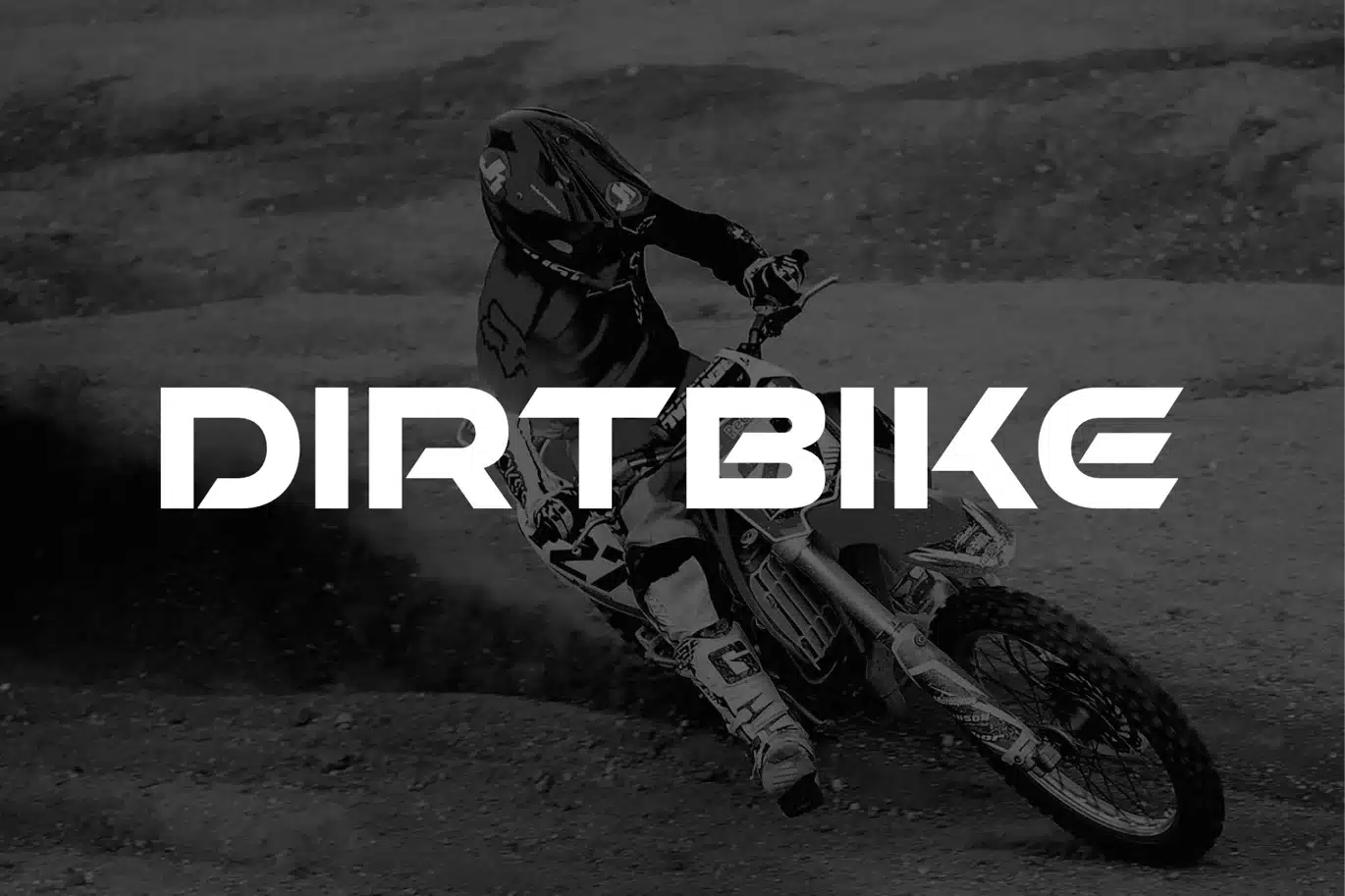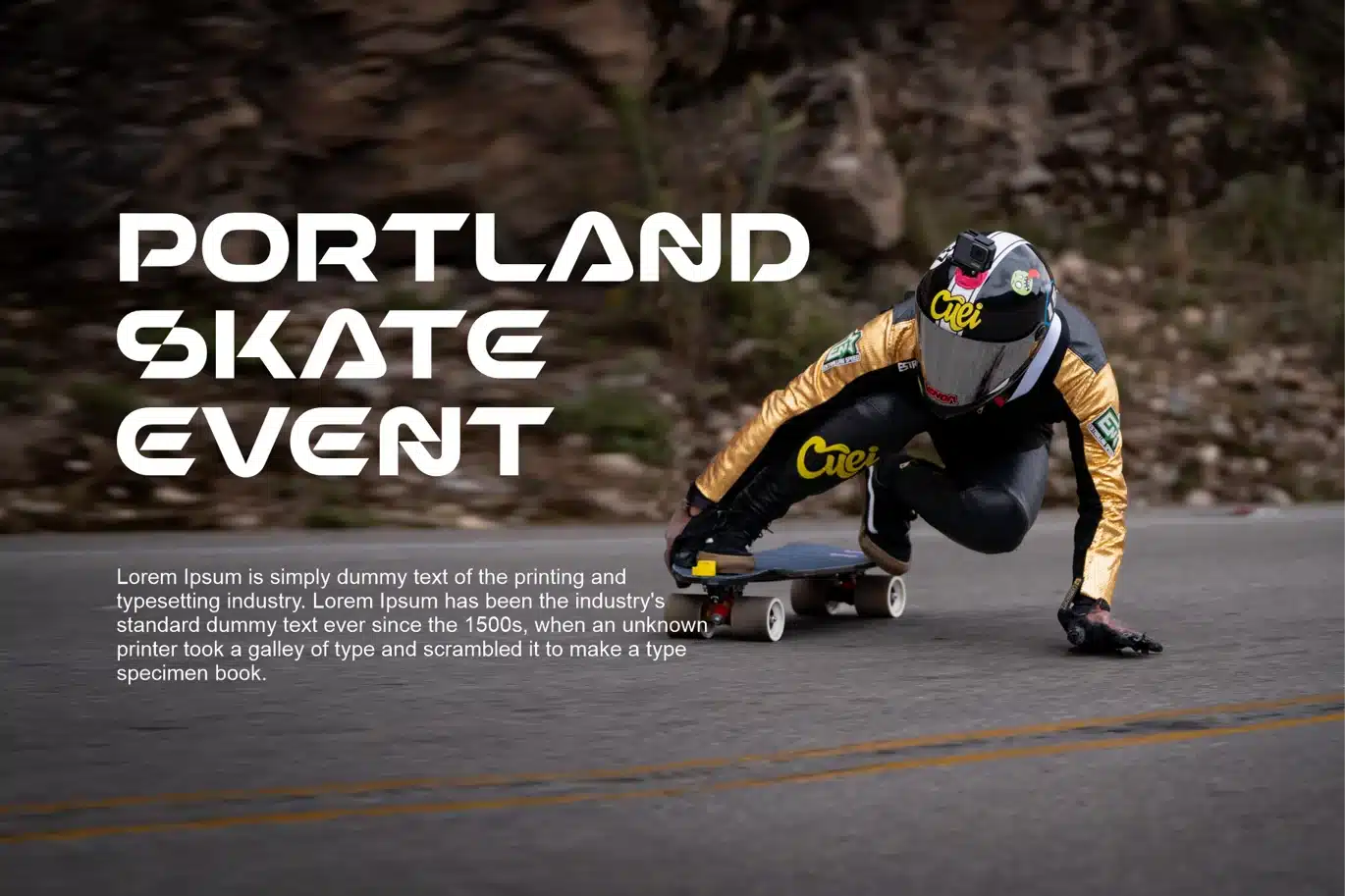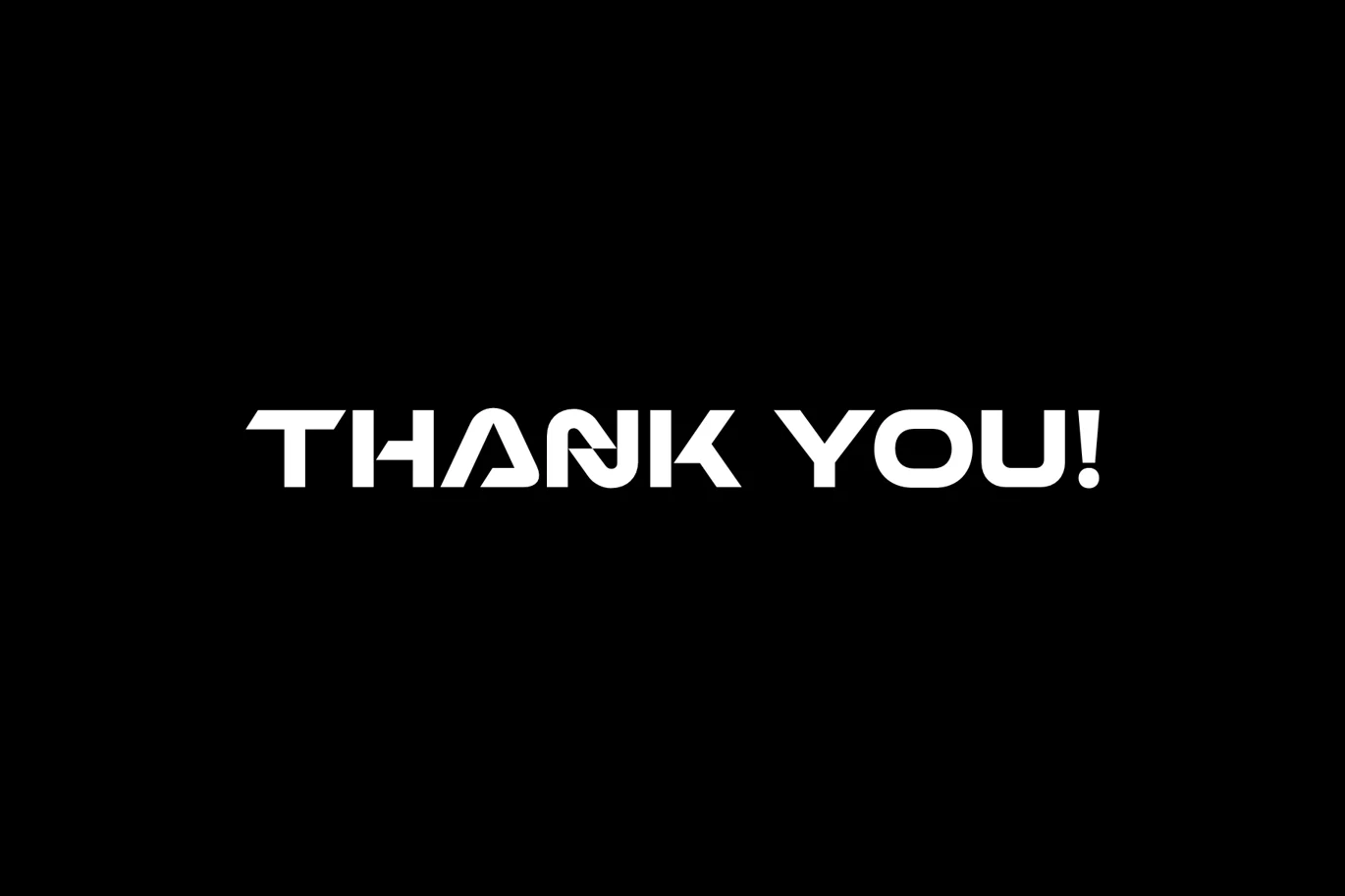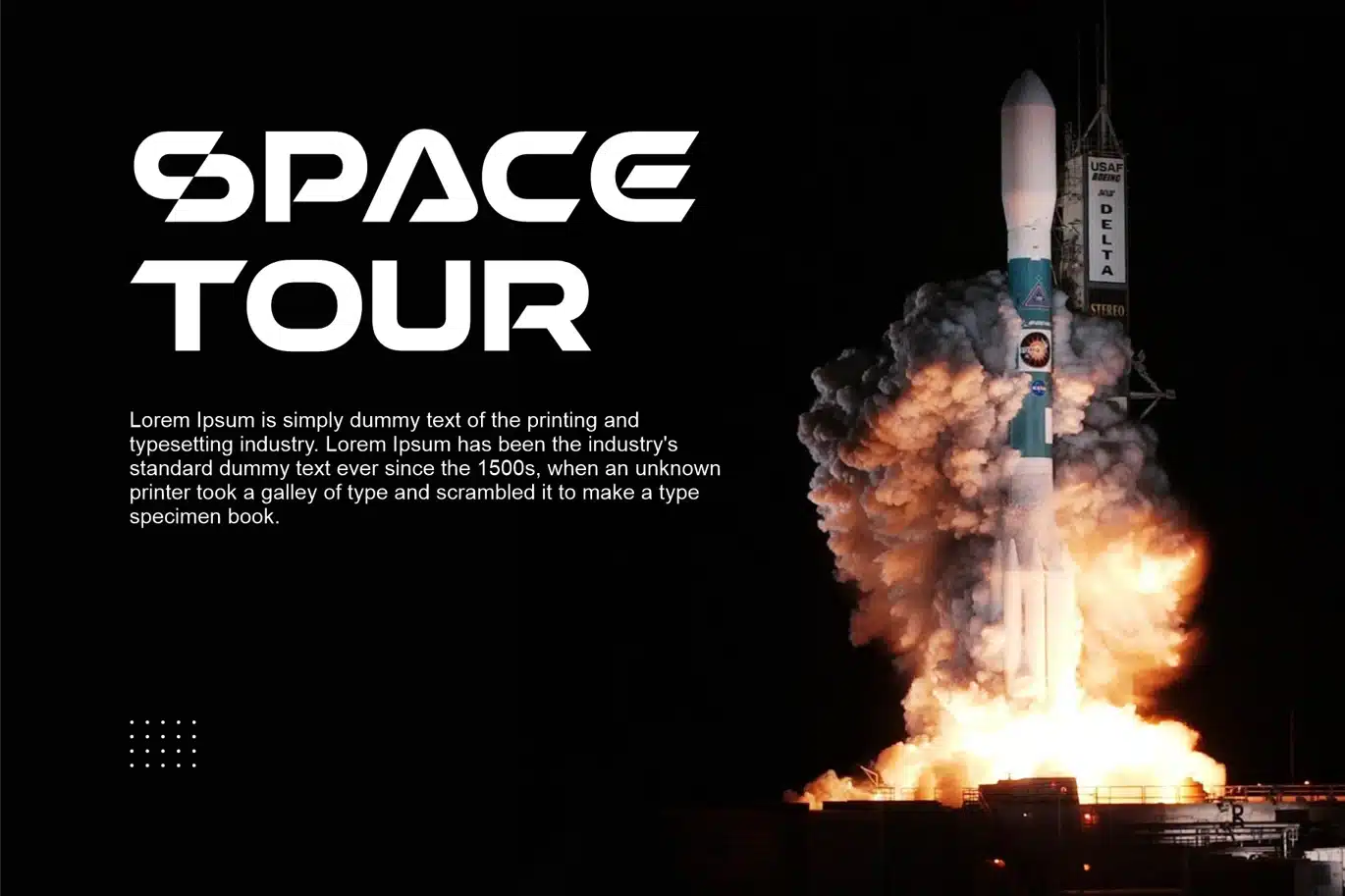
NOS Font
The NOS font embodies sleek, dynamic lines mirroring the speed and energy of modern sports racing. Its bold typography captures the essence of velocity, with sharp, futuristic contours that evoke a sense of adrenaline-fueled motion.